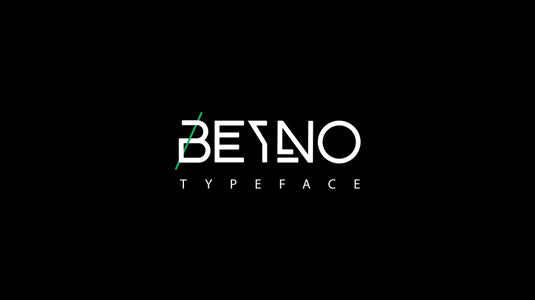
Download and enjoy this free beyno typeface. Cool typeface to showcase your designs in a modern way. Download this typeface from the original source of The Hungry JPEG. Amaze your fellow designers and create stunning designs with this beautiful font.